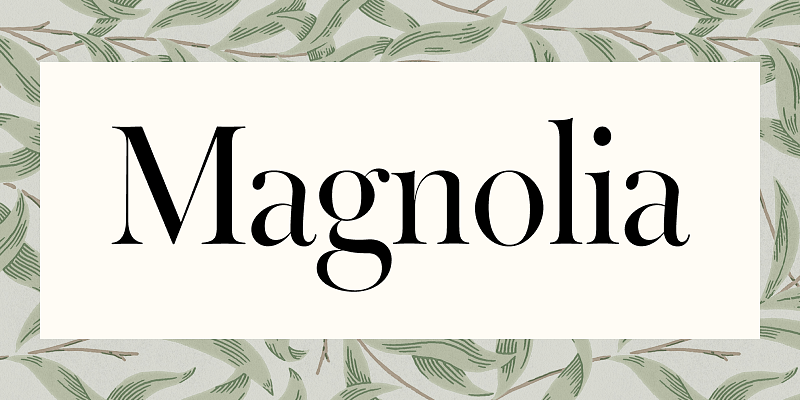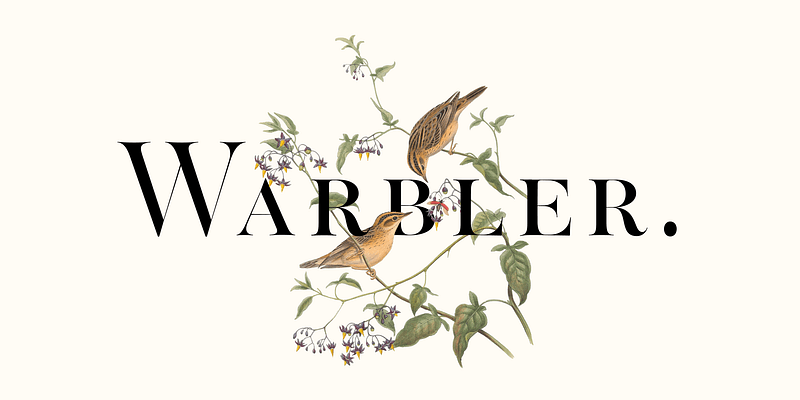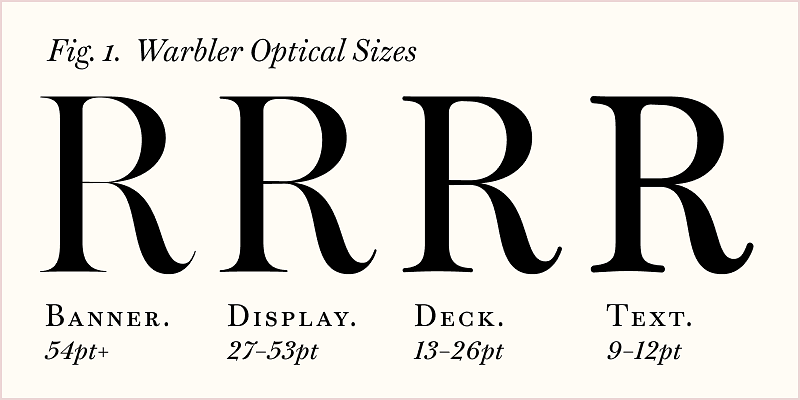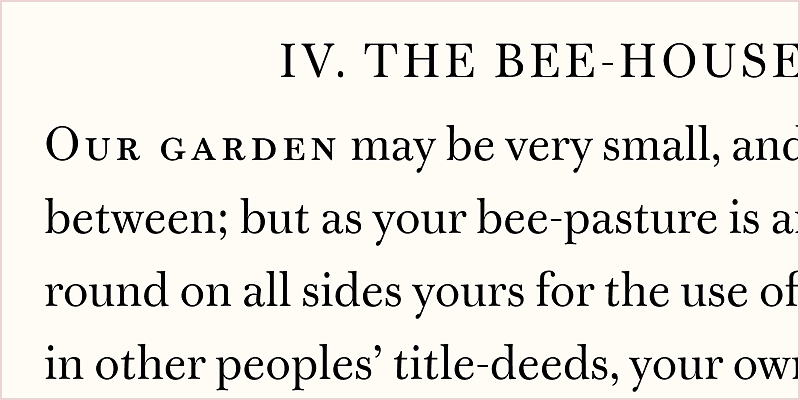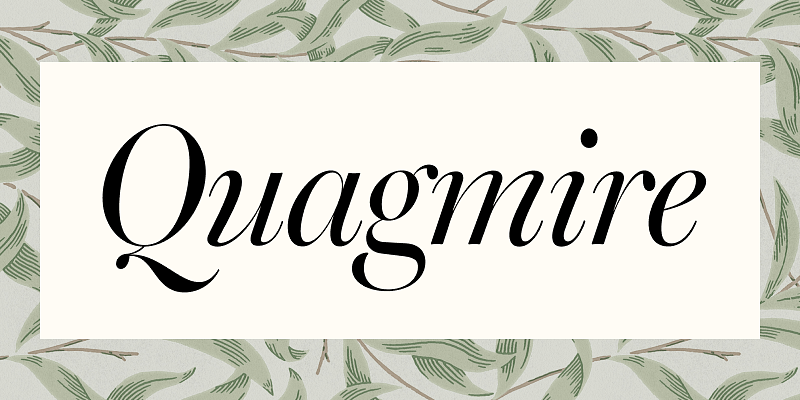
Warbler is a typeface for extended reading, with an emphasis on the screen. Stylistically, it follows in the footsteps of the types cut by William Martin in 1790 for the English printer William Bulmer, who famously used them in his editions for the Shakespeare Printing Office. This interpretation attempts to showcase the softer side of the Modern serif that Martin cultivated in his designs, a more genteel approach that contrasts with the vigorous, authoritative tone of the Scotch Romans that would follow it.